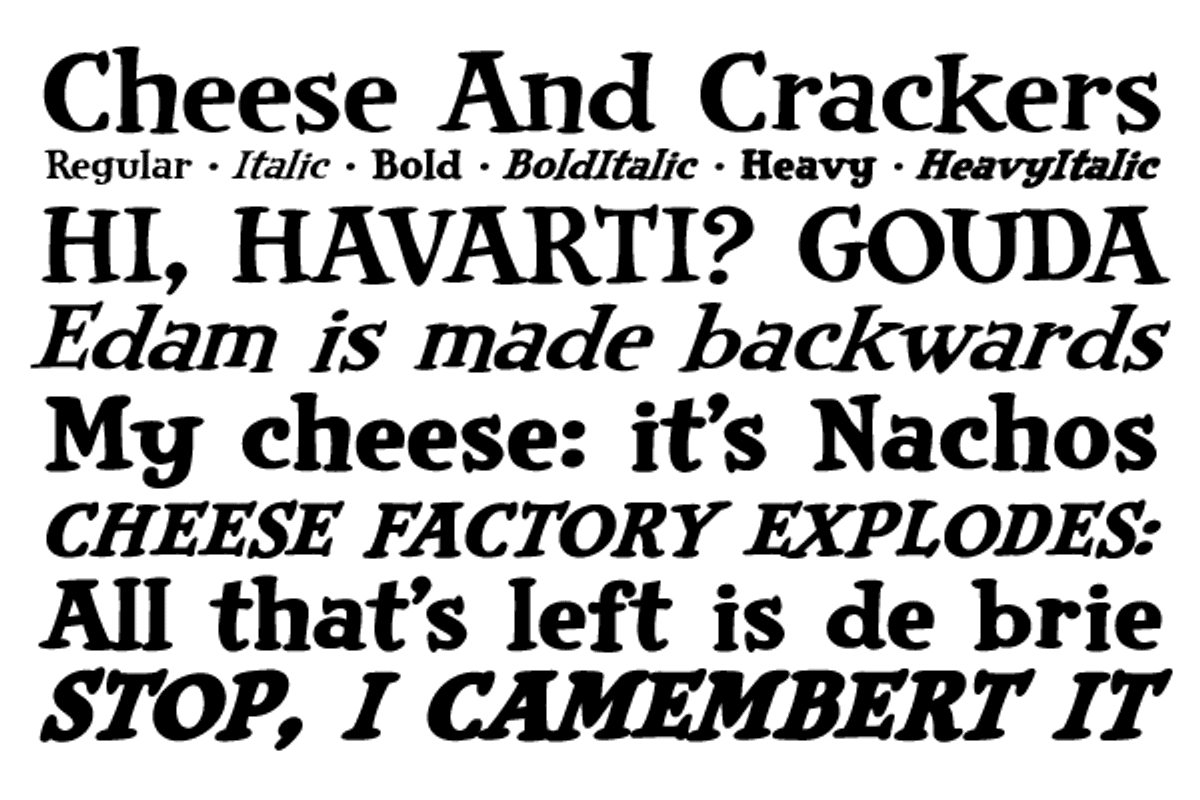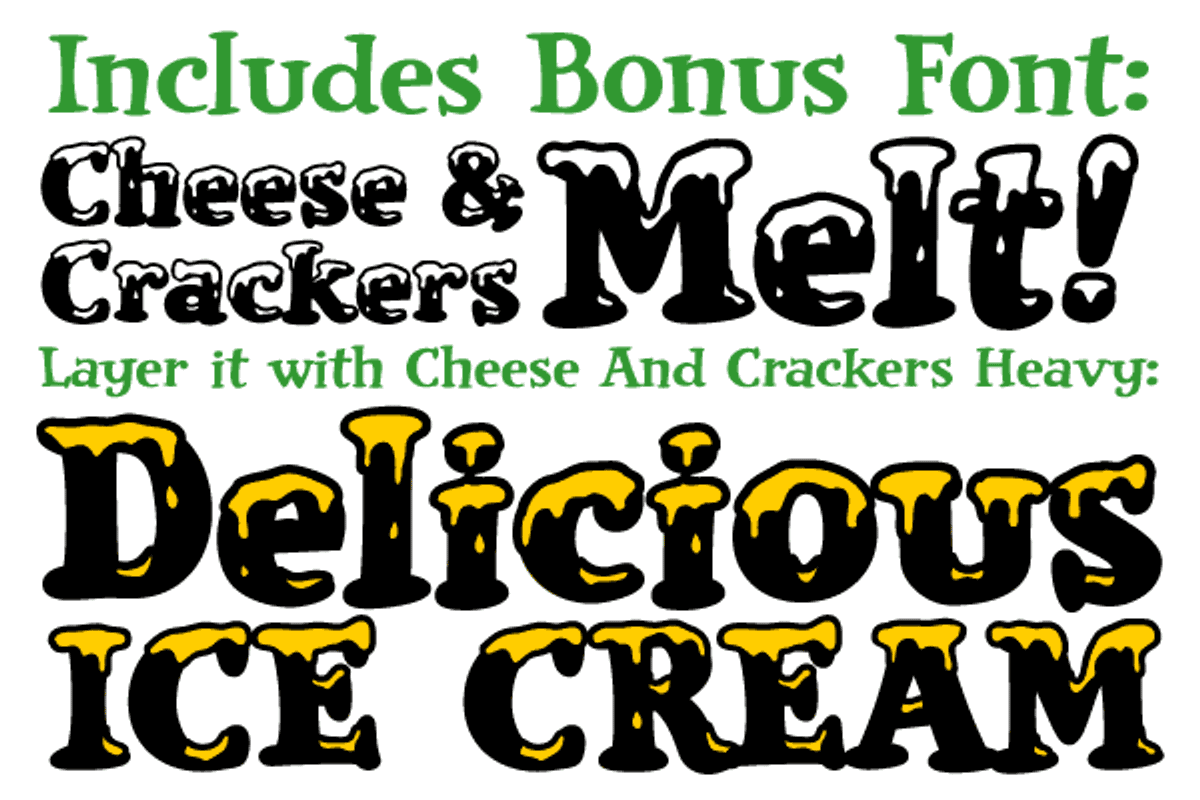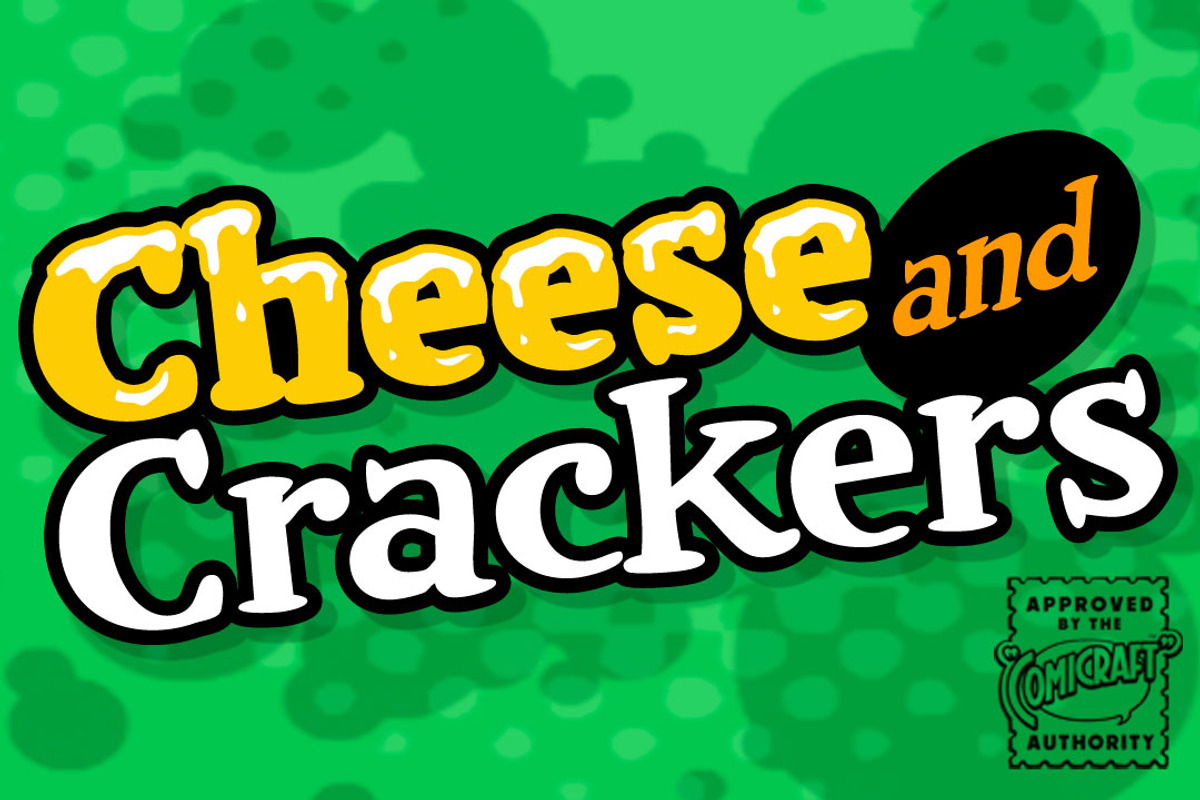
Cheese and Crackers
Gromit, you forgot the Cheese!
Specially tailored for Titan Books' Wallace & Gromit comic strips, Cheese & Crackers is a soft serifed set of fonts as cosy as Wendolene’s Woolly jumpers, and as crumbly as a slice of Wallace’s favorite Wensleydale.